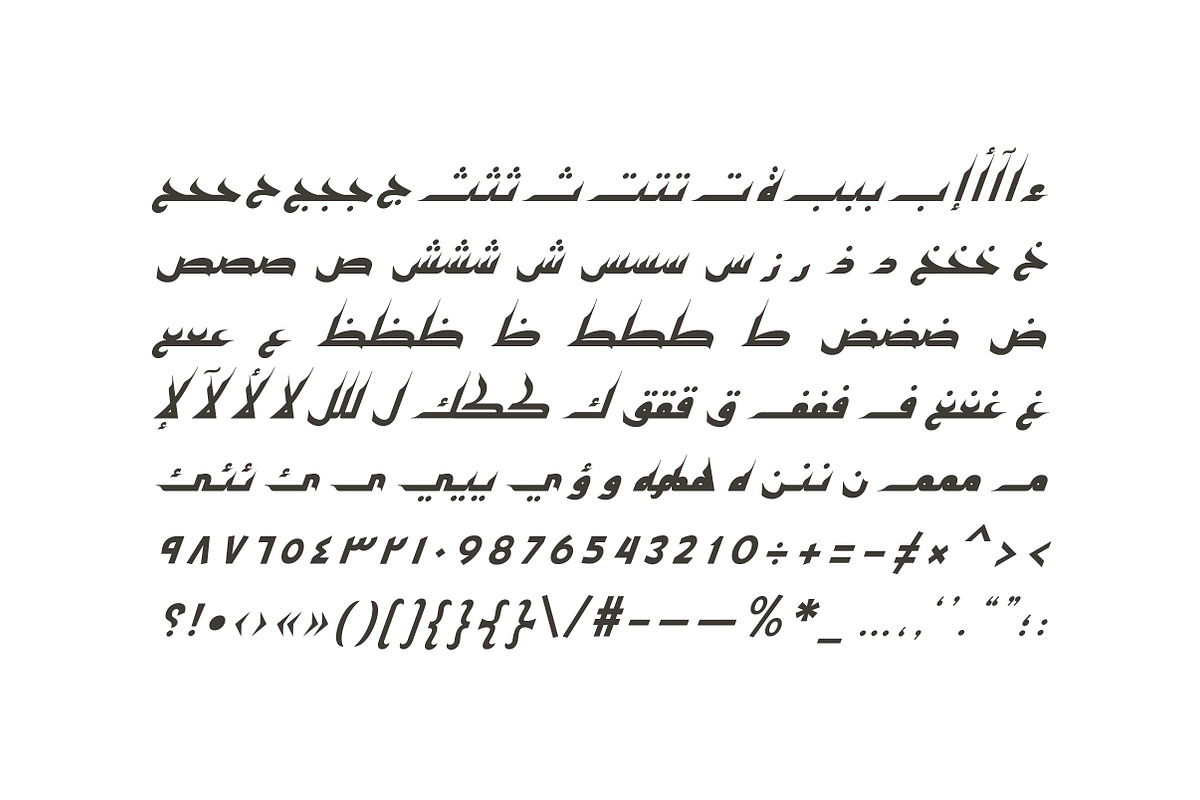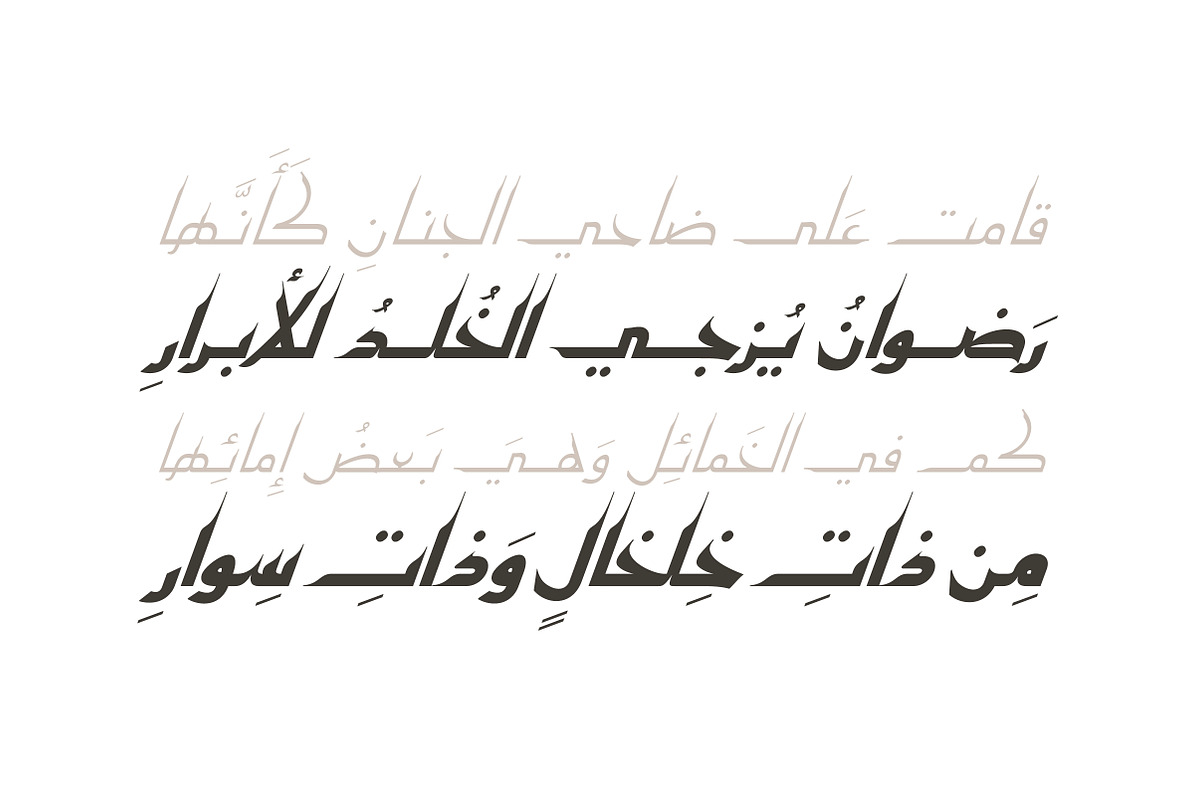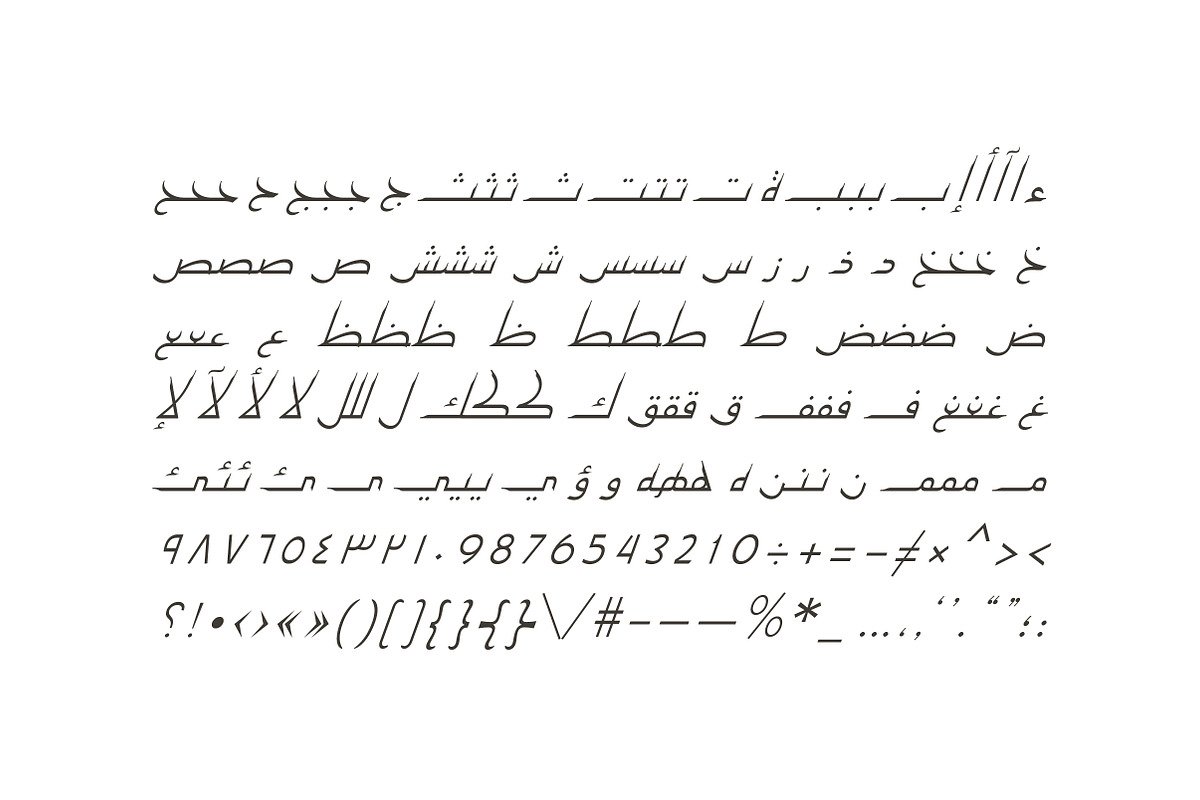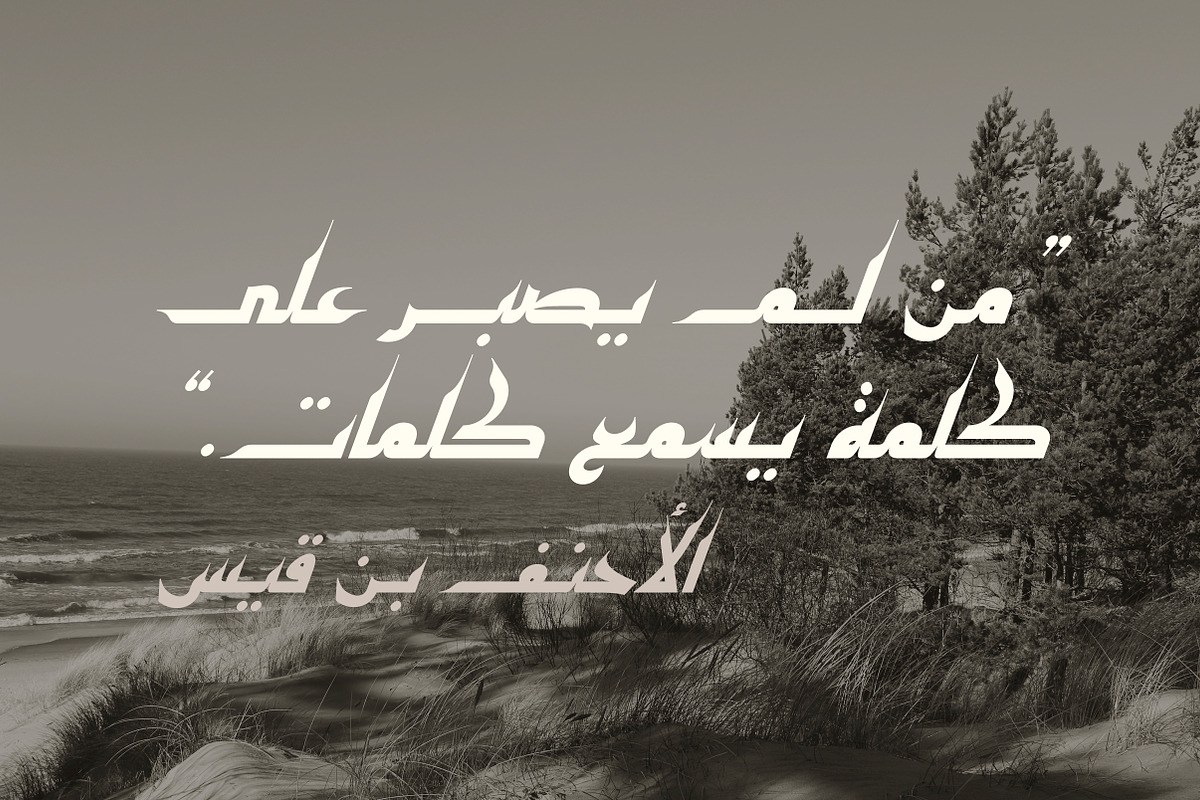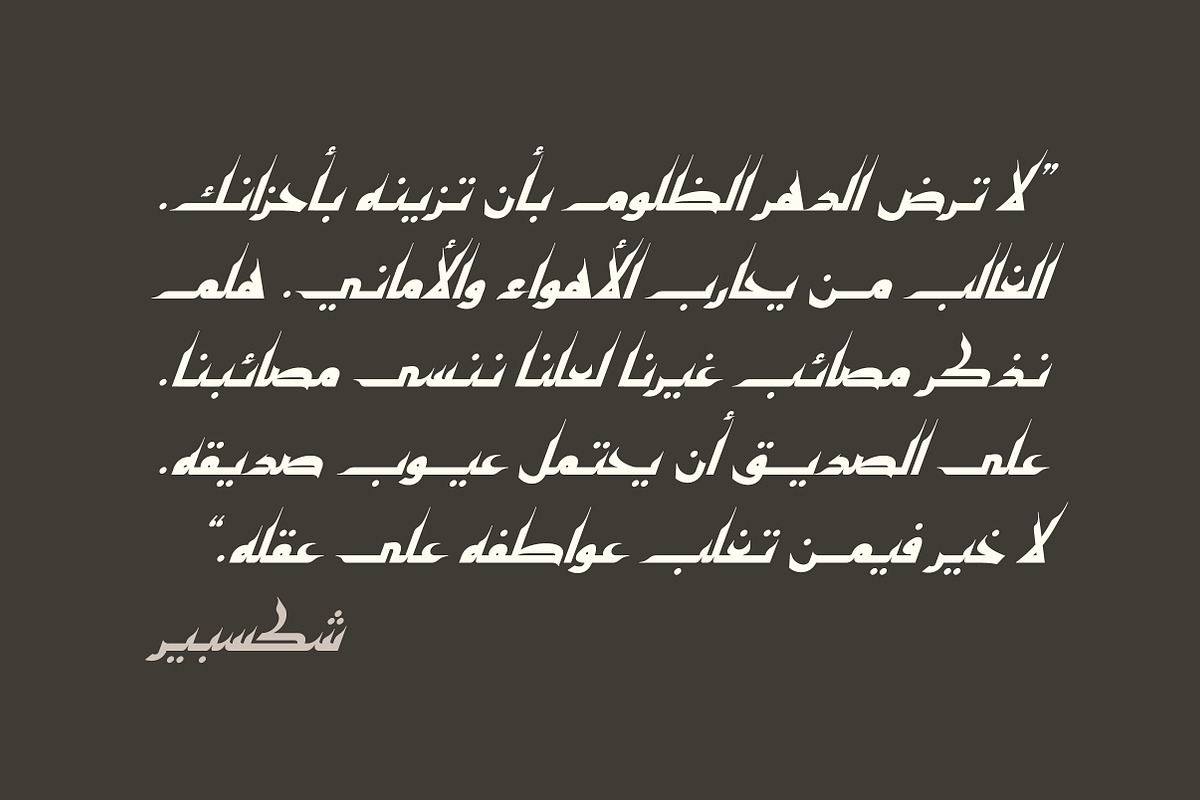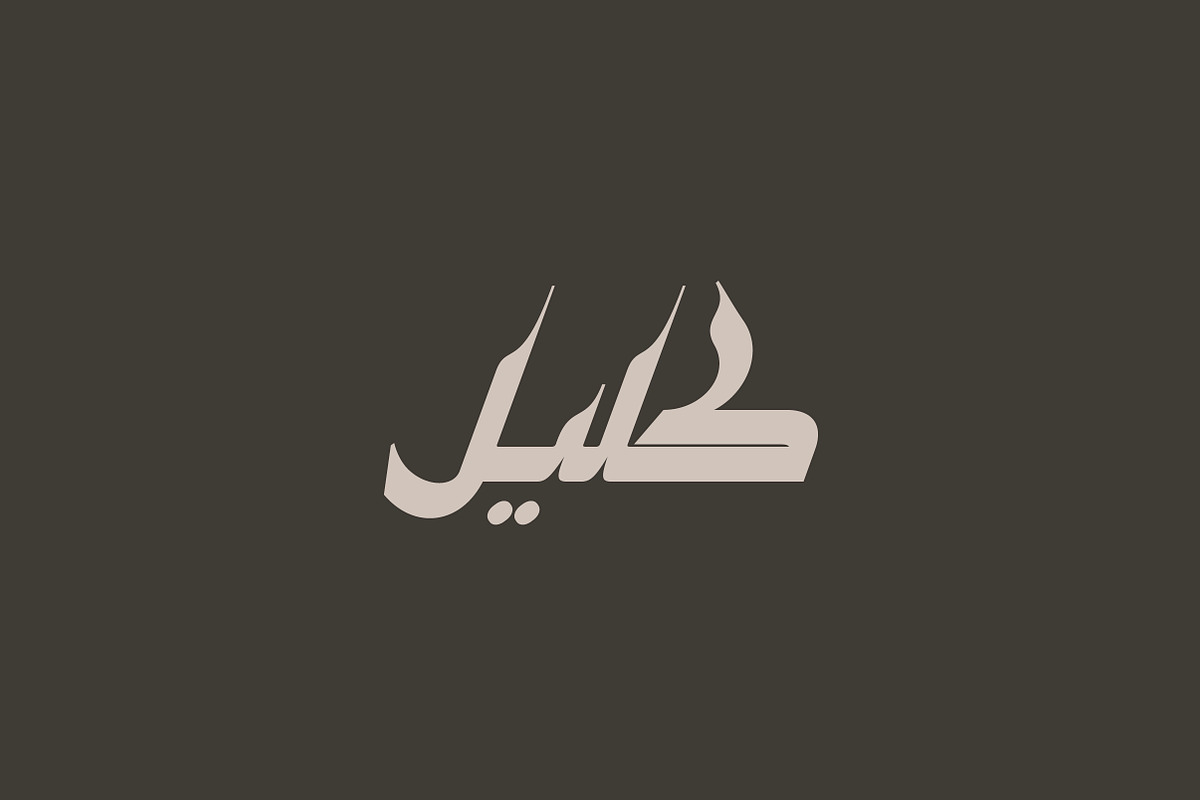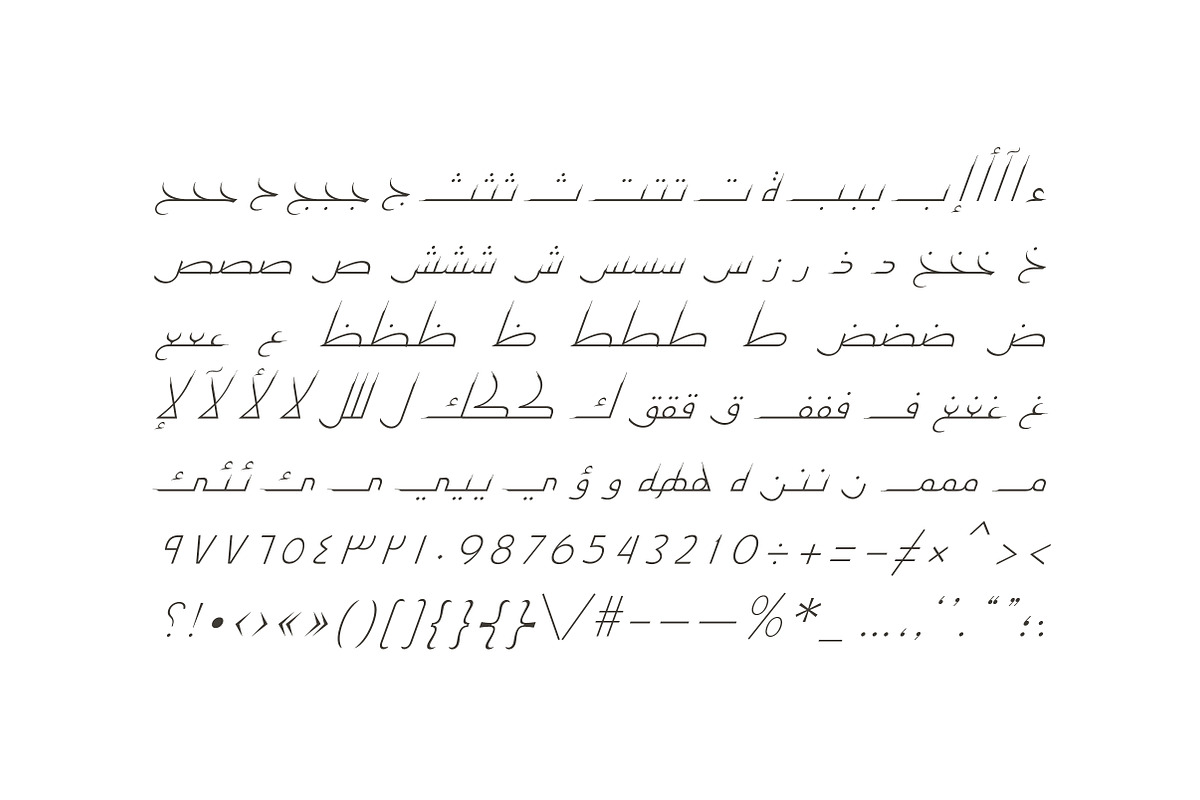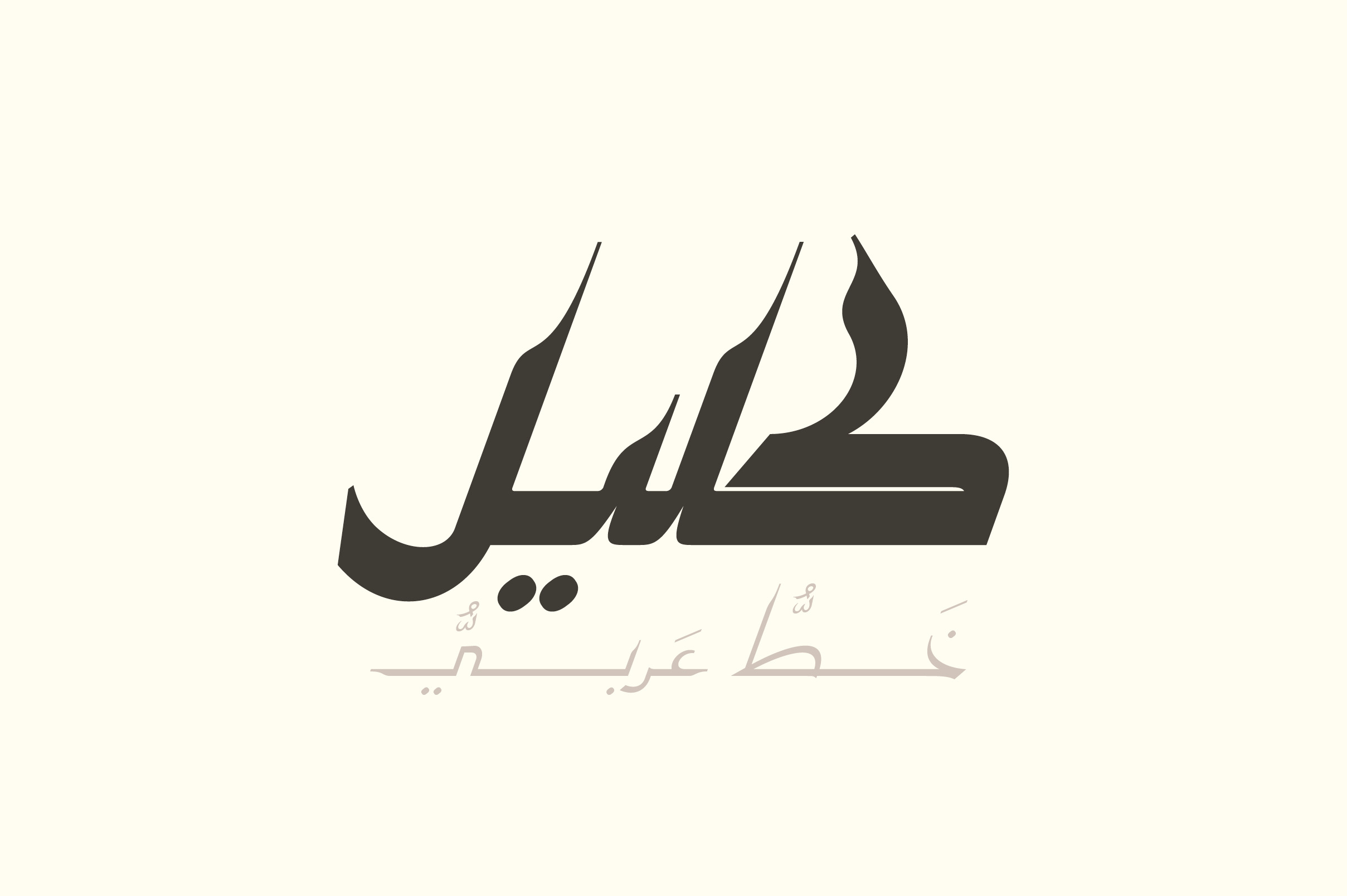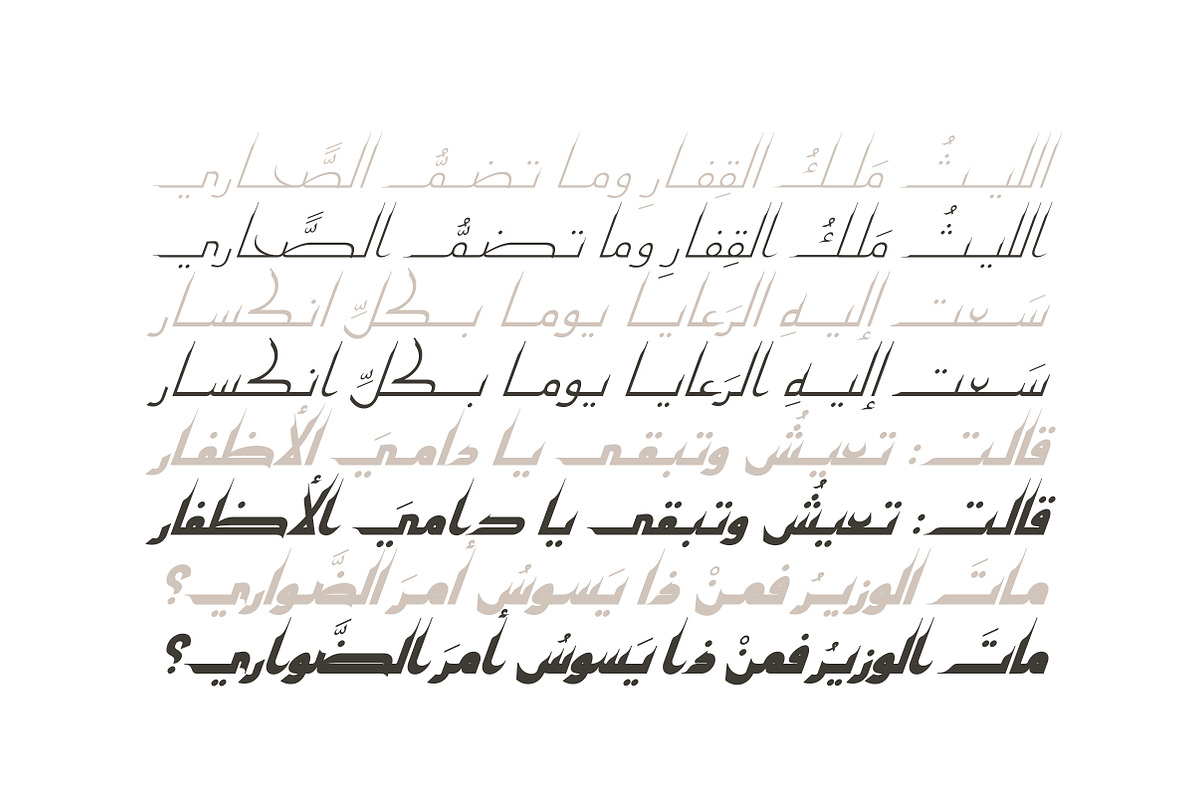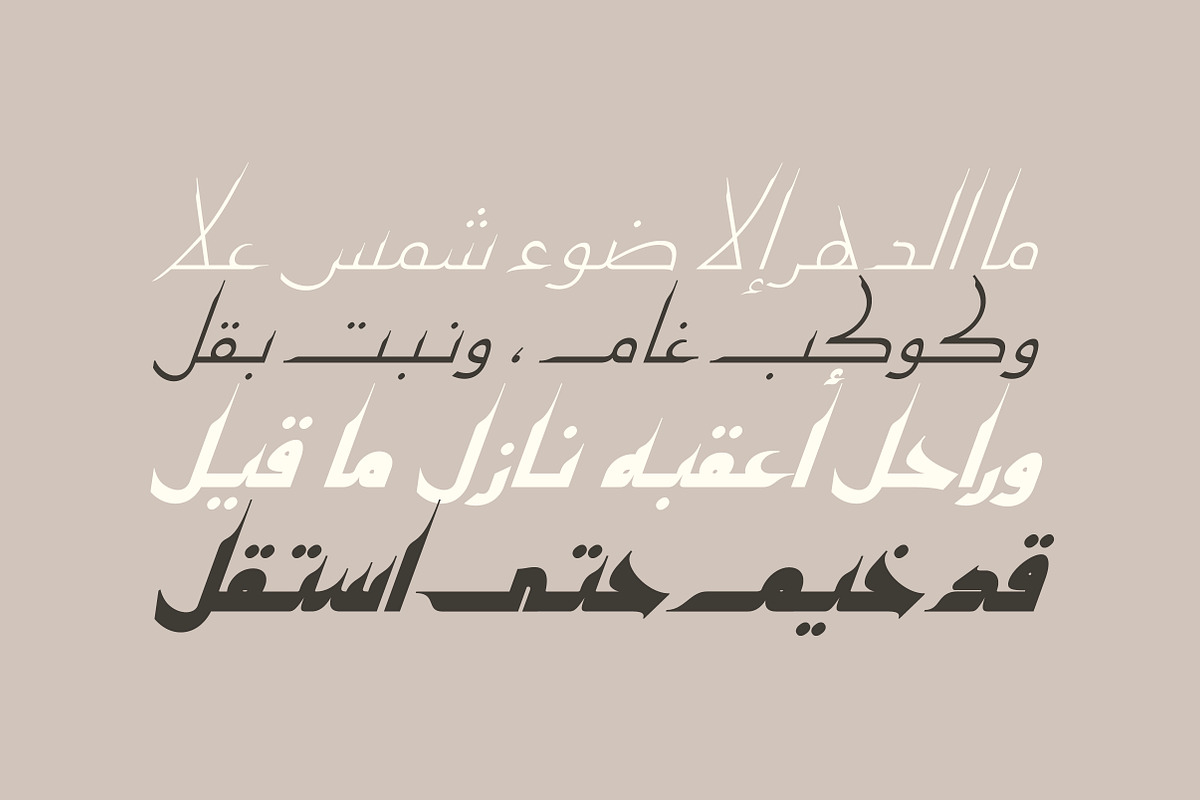
Kaleel - Arabic Typeface
Kaleel is an Arabic display font that is inspired by the calligraphic slip-painted pottery form the 10th Century. The font family consists of 4 weights (Light, Regular, Bold and Black*) in addition to a stylistic set. Kaleel supports Arabic, Persian and Urdu and it suits a various range of creative applications for web and print.